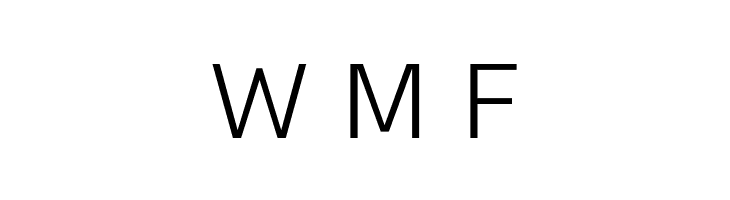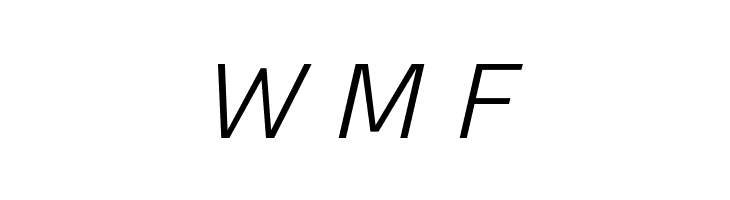
Acari Sans Bold Font
A bold, modern sans-serif font with excellent legibility and clean lines.
Acari Sans SemiBold Font
A clean, modern sans-serif font with a semi-bold weight and balanced design.
Acari Sans Medium Font
A clean, modern sans-serif font with medium weight and excellent legibility.
Acari Sans Font
A clean and modern sans-serif font with uniform strokes and balanced spacing.
Acari Sans Light Font
A modern, light sans-serif font with clean lines and excellent readability.
Acari Sans Bold Italic Font
A bold, italic sans-serif font with a modern and dynamic style.
Acari Sans Medium Italic Font
A modern, italicized sans-serif font with clean lines and balanced proportions.
Acari Sans SemiBold Italic Font
A modern, semi-bold italic sans-serif font with medium contrast and normal spacing.
Acari Sans Italic Font
A modern sans-serif font with an italic slant, offering a clean and dynamic appearance.
Acari Sans Light Italic Font
A modern, light, italic sans-serif font with sleek and fluid character design.